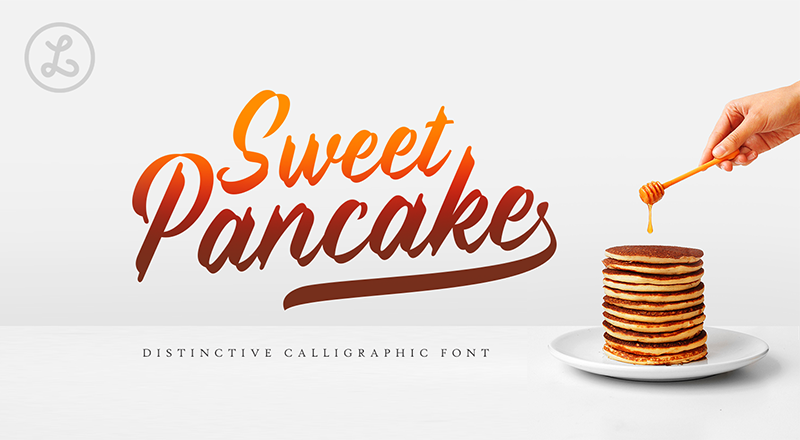
Sweet Pancake font comes in different calligraphy styles. The usual shape has been customized to make it look more personal and special. This is free for personal use only. Full version and commercial license please download here: https://crmrkt.com/oezAbX ---------------- More fonts: http://locomotype.com |